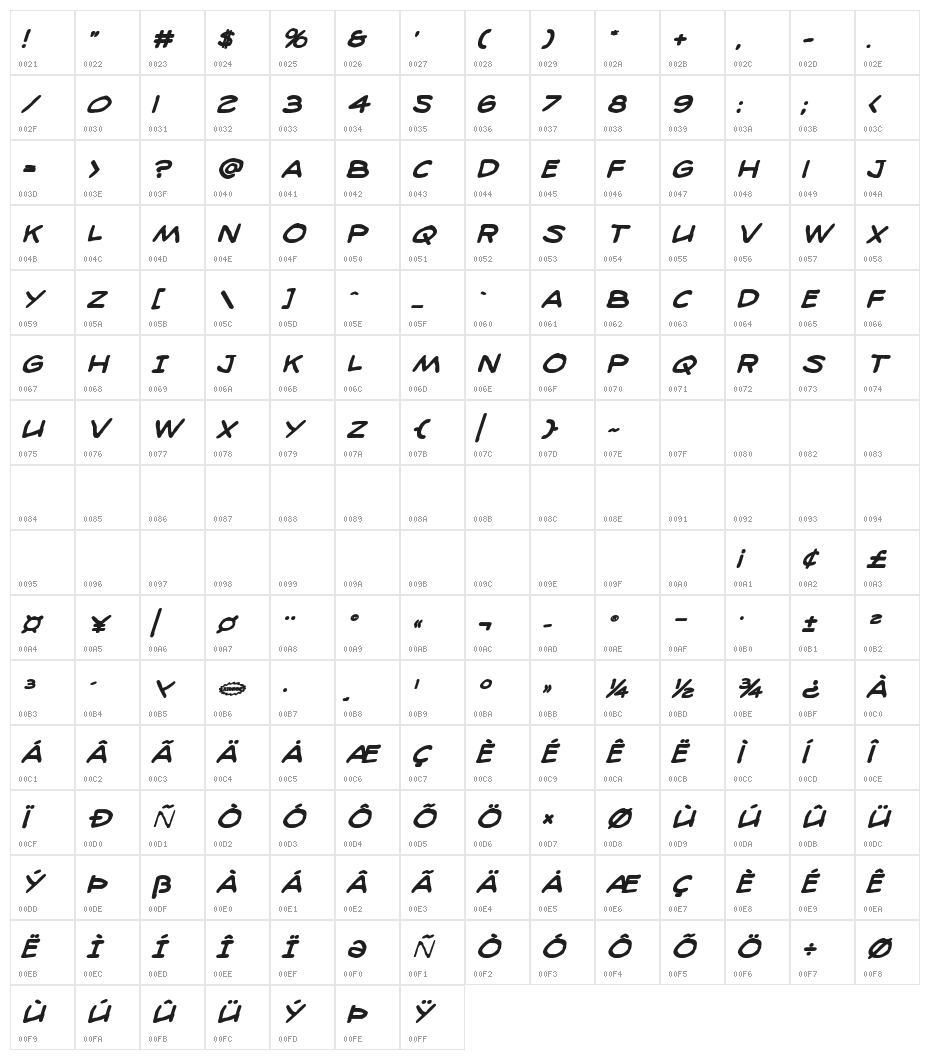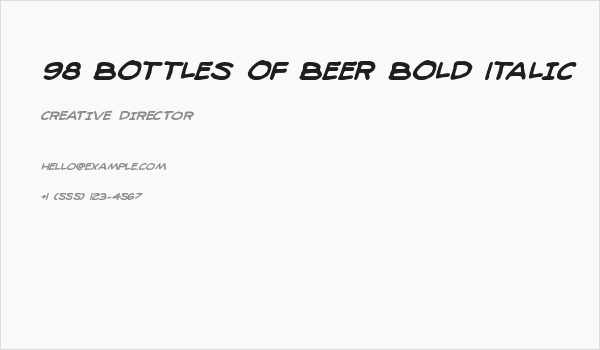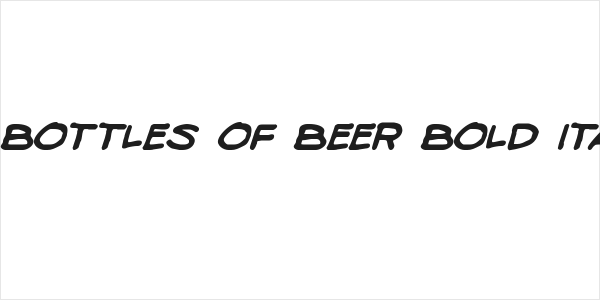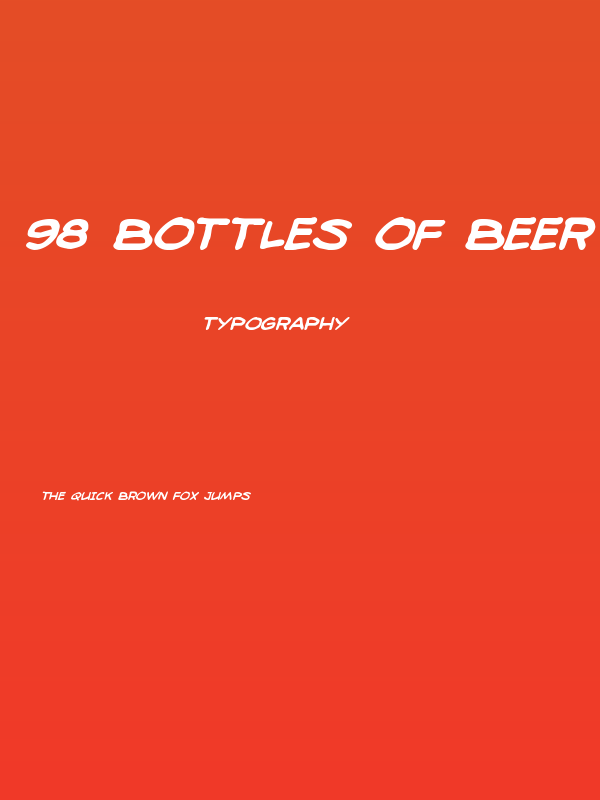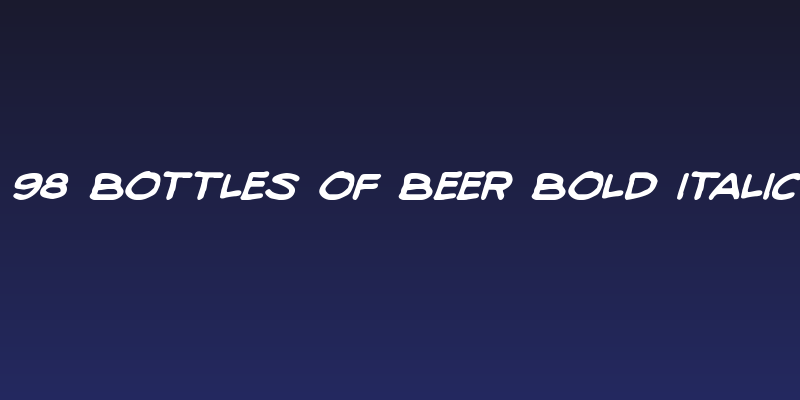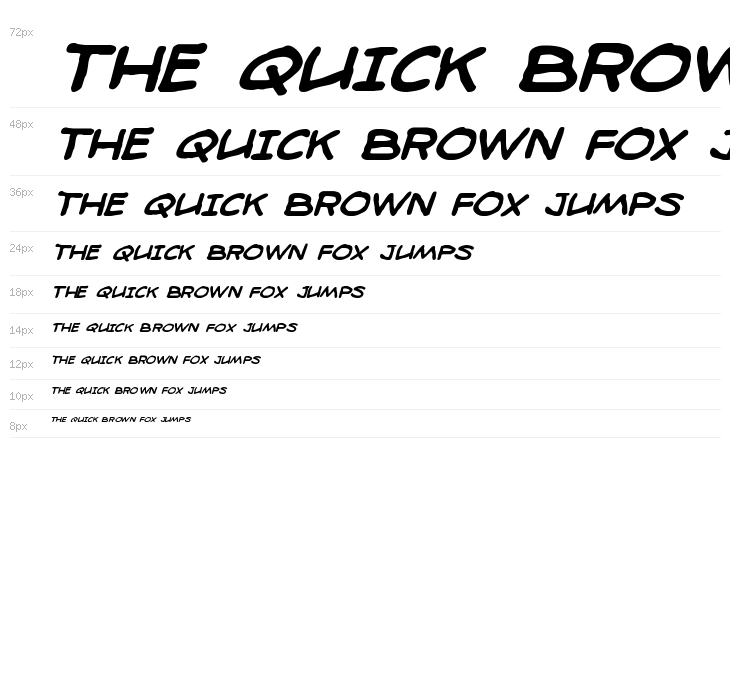
98 Bottles of Beer Bold Italic Font
98 Bottles of Beer Bold Italic Description
This font features a bold and italic style with a playful and dynamic appearance. The characters are slightly slanted, giving a sense of motion and energy. The strokes are thick and rounded, contributing to a friendly and approachable look. The uppercase and lowercase letters maintain a consistent style, with smooth curves and a uniform weight. Numbers and special characters are designed to match the overall aesthetic, ensuring cohesion across all elements. The font's boldness and slight slant make it ideal for attention-grabbing headlines or creative projects.
| Overall Style | Playful and dynamic |
| Proposed Projects | Ideal for posters, logos, branding, and any project requiring a bold and energetic typeface. |